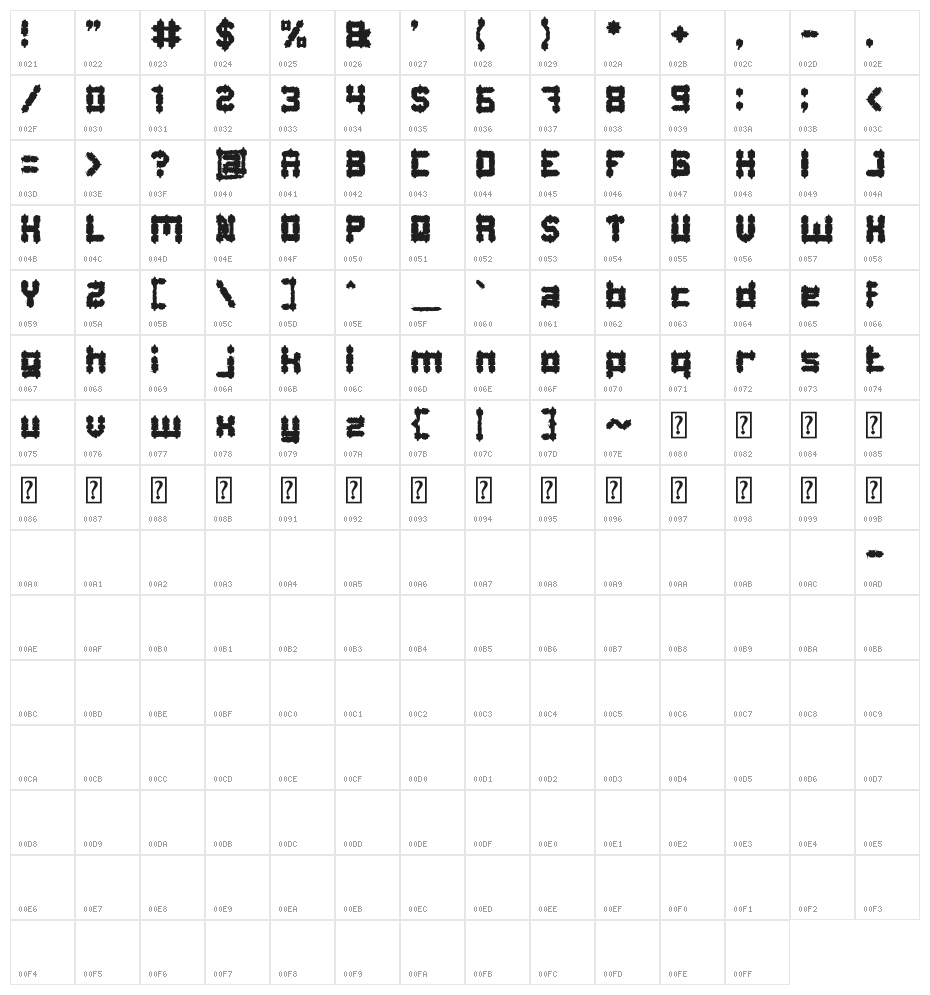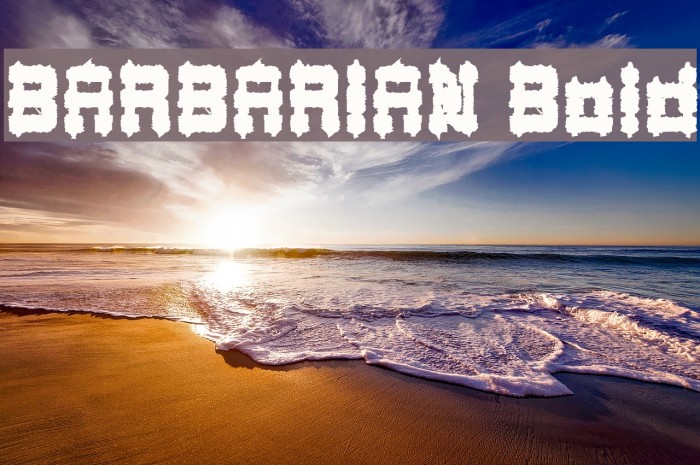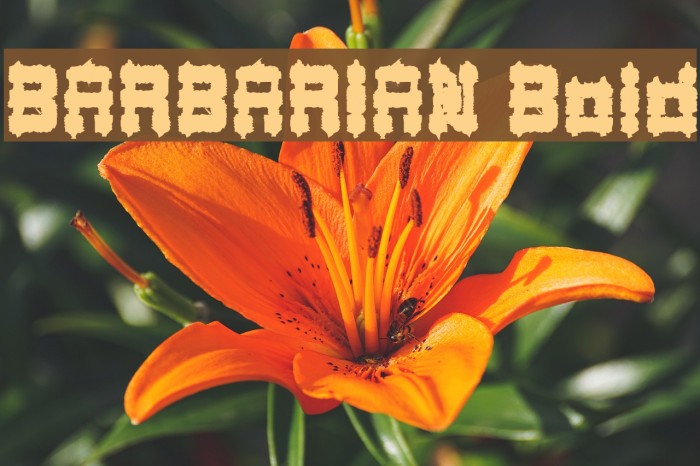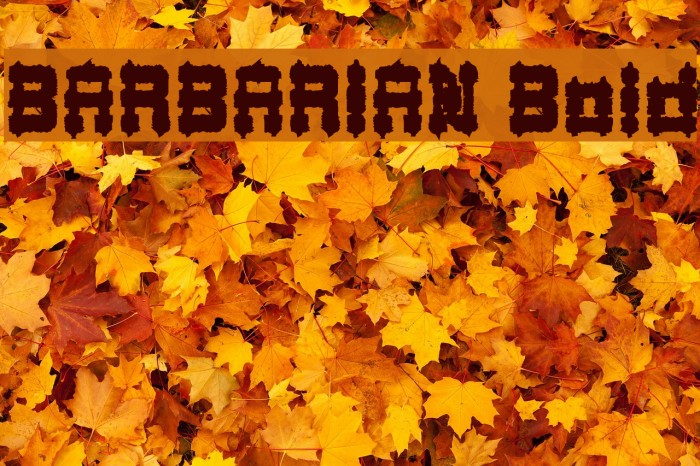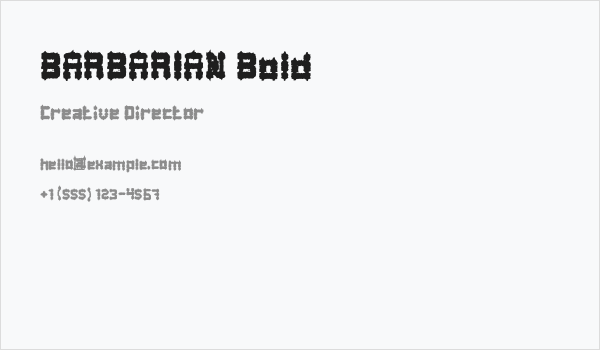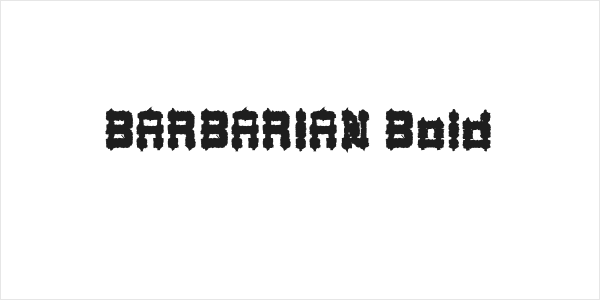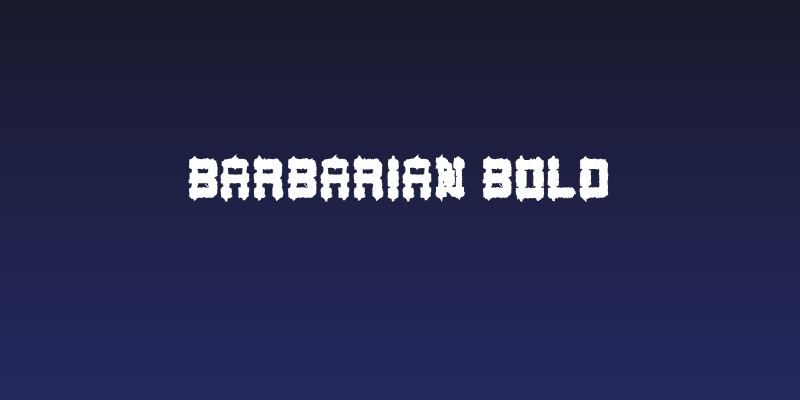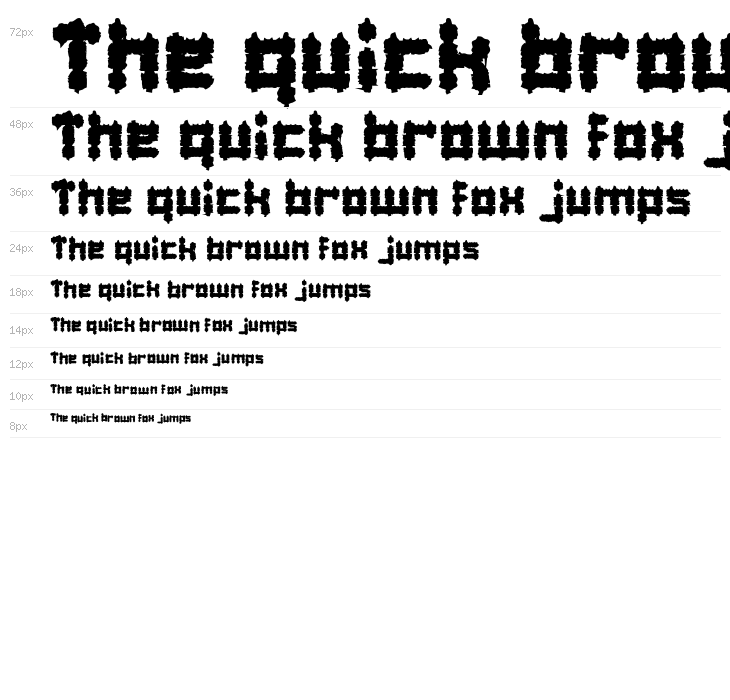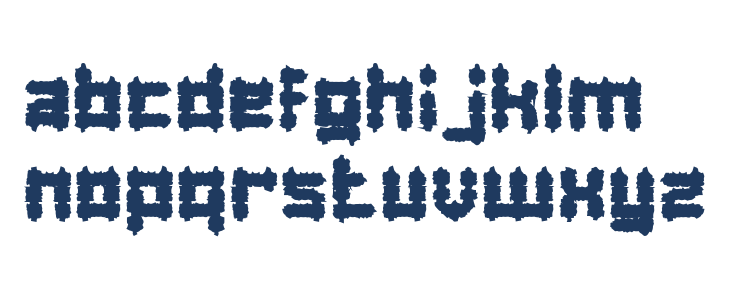
BARBARIAN Bold Font
BARBARIAN Bold Description
This font features a rugged and bold design, characterized by its jagged and uneven edges that give it a raw, untamed appearance. The characters are thick and substantial, creating a strong visual impact. The uppercase and lowercase letters maintain a consistent style, with a slightly condensed width that enhances their boldness. Numbers and special characters follow the same design principles, ensuring uniformity across all elements. The font's unique texture and boldness make it stand out, ideal for projects that require a dramatic and eye-catching typeface.
| Proposed Projects | Perfect for posters, video game titles, branding for extreme sports, or any project needing a bold, adventurous look. |